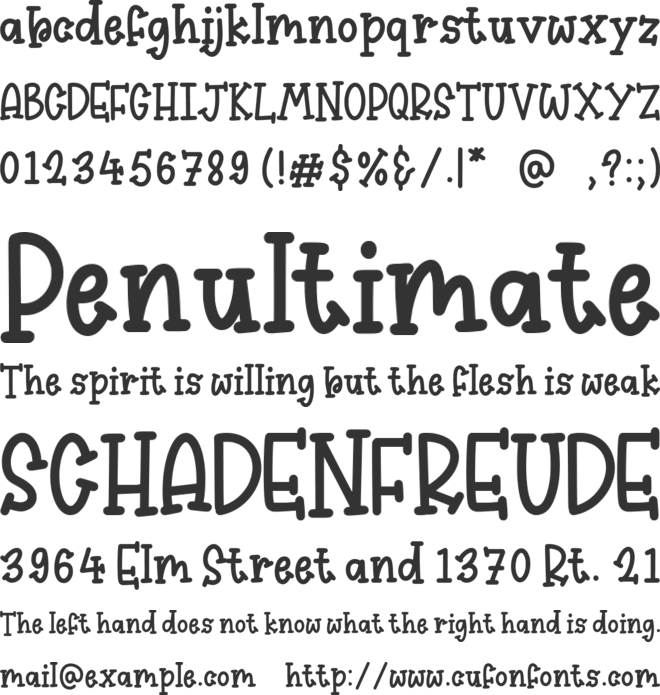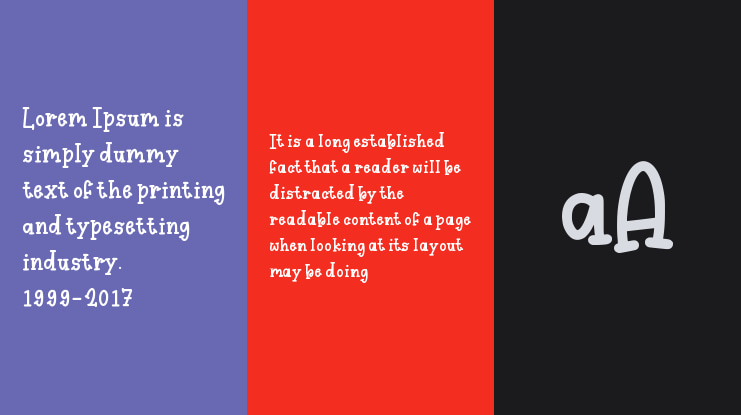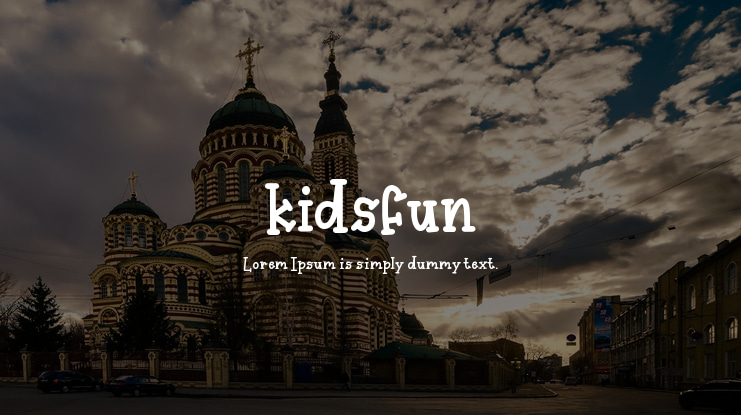
kidsfun Font
Balpirick Studio
Proudly Present, kidsfun Font.
kidsfun is a Cute Slab Serif font.
kidsfun is perfect for product packaging, branding project, megazine, social media, wedding, or just used to express words above the background.